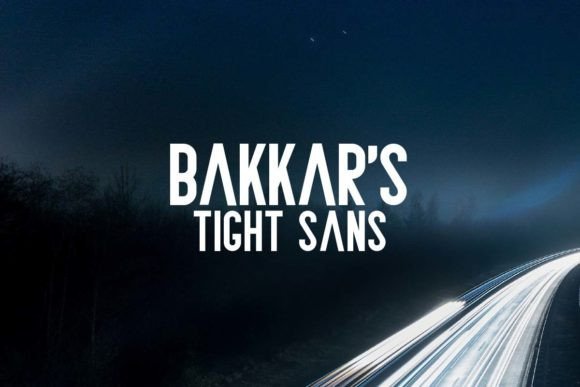
Discover the Power of Minimalism: Bakkar’s Tight Sans Font
There’s nothing quite like the thrill of starting a new project, blank page staring back at you, full of endless possibilities. As a designer, you’re constantly on the lookout for the perfect font to bring your vision to life. That’s where Bakkar’s Tight Sans Font comes in – a simple yet powerful tool that’s about to become your new go-to.
This clean and modern sans serif font is the perfect solution for designers looking to add a touch of sophistication to their projects. With its sleek lines and minimalistic design, Bakkar’s Tight Sans Font delivers a strong and confident feel that’s sure to elevate your work. Whether you’re creating a logo, brochure, or website, this versatile font is a valuable addition to any designer’s toolkit.
Bakkar’s Tight Sans Font Key Features
- Font Family: Bakkar’s Tight Sans – a modern sans-serif font designed for optimal readability.
- Unique Characteristics: Features a distinctive, condensed design with optimized letter spacing for improved readability, especially in narrow columns or small text sizes.
- Language Support: Offers comprehensive language support, including Latin, Cyrillic, and Greek scripts, making it suitable for global design applications.
Bakkar’s Tight Sans Font Review
Overall, I have mixed feelings about Bakkar’s Tight Sans Font. It’s a decent choice for body text, but it falls short in certain areas.
- High x-height, making it easy to read at small font sizes.
- Sharp, clean lines and modern aesthetic.
- Good spacing between characters and lines.
- Lack of italic or oblique styles.
- Only a few weights available, which may limit its versatility.
- Not suitable for display text or headlines, as it can feel too plain.
Overall, Bakkar’s Tight Sans Font is a solid choice for body text in digital products, but it may not be the best option for projects requiring a lot of variety or flair. With a bit more development, this font could be a top contender in the sans-serif category.
Bakkar’s Tight Sans Font: A Practical Application Guide
For best results, use a clean and simple design to showcase the font’s unique characteristics.
For a professional look, pair Bakkar’s Tight Sans Font with a clean sans-serif font for body text.
For a bold and eye-catching design, use Bakkar’s Tight Sans Font for headings and subheadings.
Bakkar’s Tight Sans Font is ideal for:
– Modern branding and logos
– Minimalist design and typography
– Digital products and interfaces
Remember to experiment with different font sizes, colors, and styles to get the most out of Bakkar’s Tight Sans Font.
Alternatives to Bakkar’s Tight Sans Font
Montserrat is a modern sans-serif font designed by Julieta Ulanovsky. It is suitable for use in digital and print media, including headings and body text. Montserrat is more geometric than Bakkar’s Tight Sans Font, with a more pronounced x-height and a slightly more condensed feel.
When to use: Montserrat is ideal for designs that require a clean and modern aesthetic, such as technology, finance, or fashion brands.
Open Sans is a popular sans-serif font designed by Steve Matteson. It is highly legible and suitable for use in digital media, including headings and body text. Open Sans is more rounded than Bakkar’s Tight Sans Font, with a slightly more relaxed feel.
When to use: Open Sans is ideal for designs that require a friendly and approachable aesthetic, such as healthcare, education, or non-profit organizations.
Inter is a modern sans-serif font designed by Rasmus Andersson. It is highly customizable and suitable for use in digital and print media, including headings and body text. Inter is more versatile than Bakkar’s Tight Sans Font, with a wide range of weights and styles to choose from.